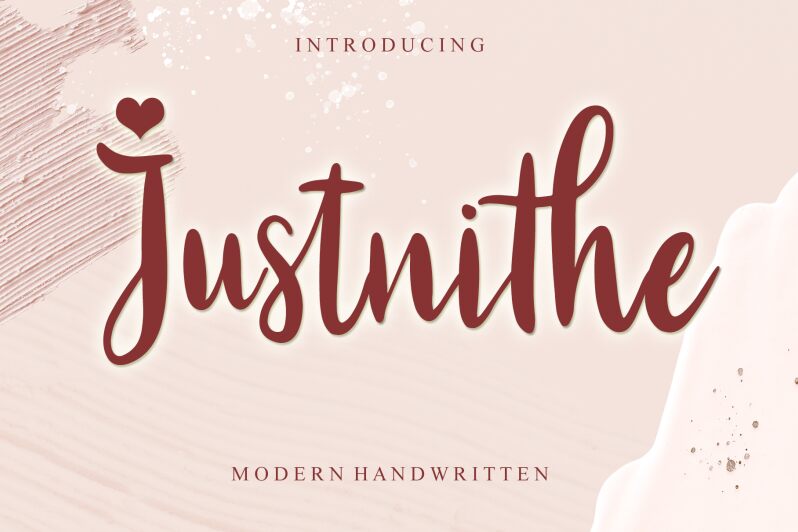
Justnithe is a modern handwritten font designed by Letterafa Studio. With its semi-light weight and condensed width, Justnithe is a versatile font suitable for a variety of projects. Its playful yet elegant design makes it perfect for use in branding materials, social media graphics, greeting cards, and more. Justnithe's modern handwritten style adds a personal touch to any project while maintaining a professional look. Whether you're designing for a wedding invitation or creating an eye-catching social media post, Justnithe is the perfect font choice to elevate your designs.